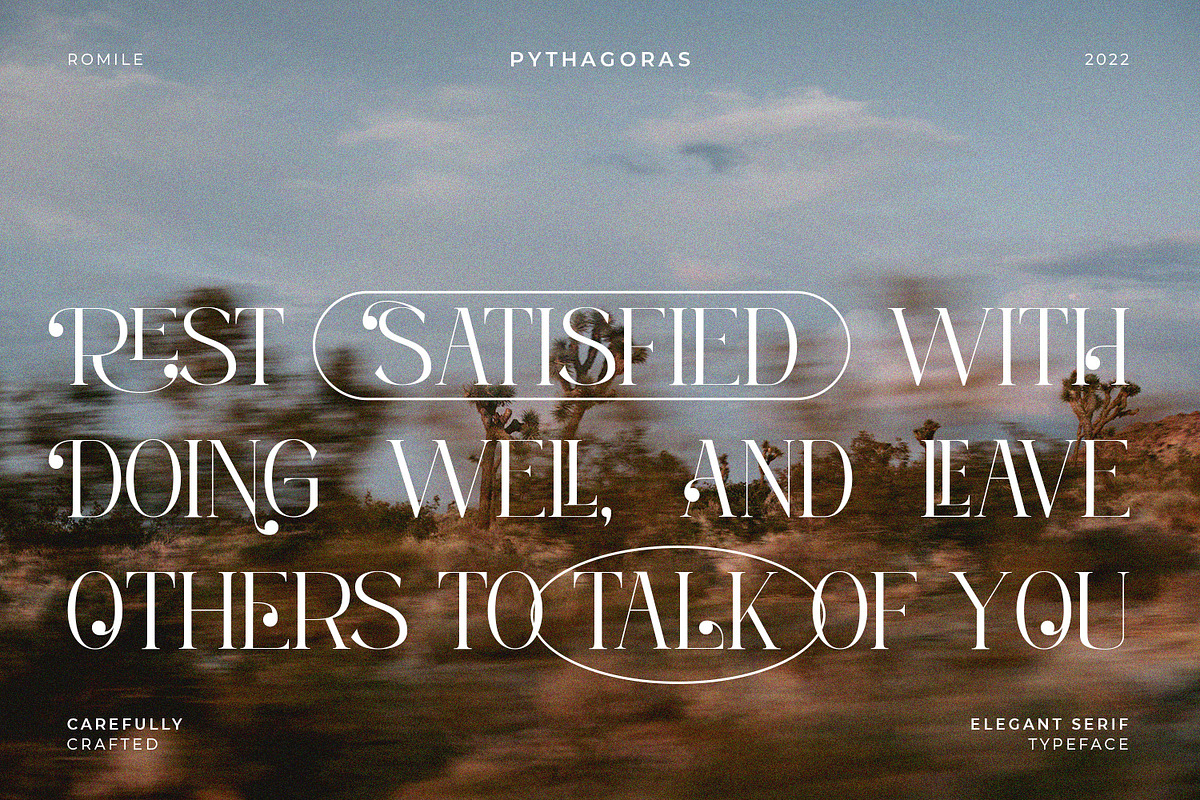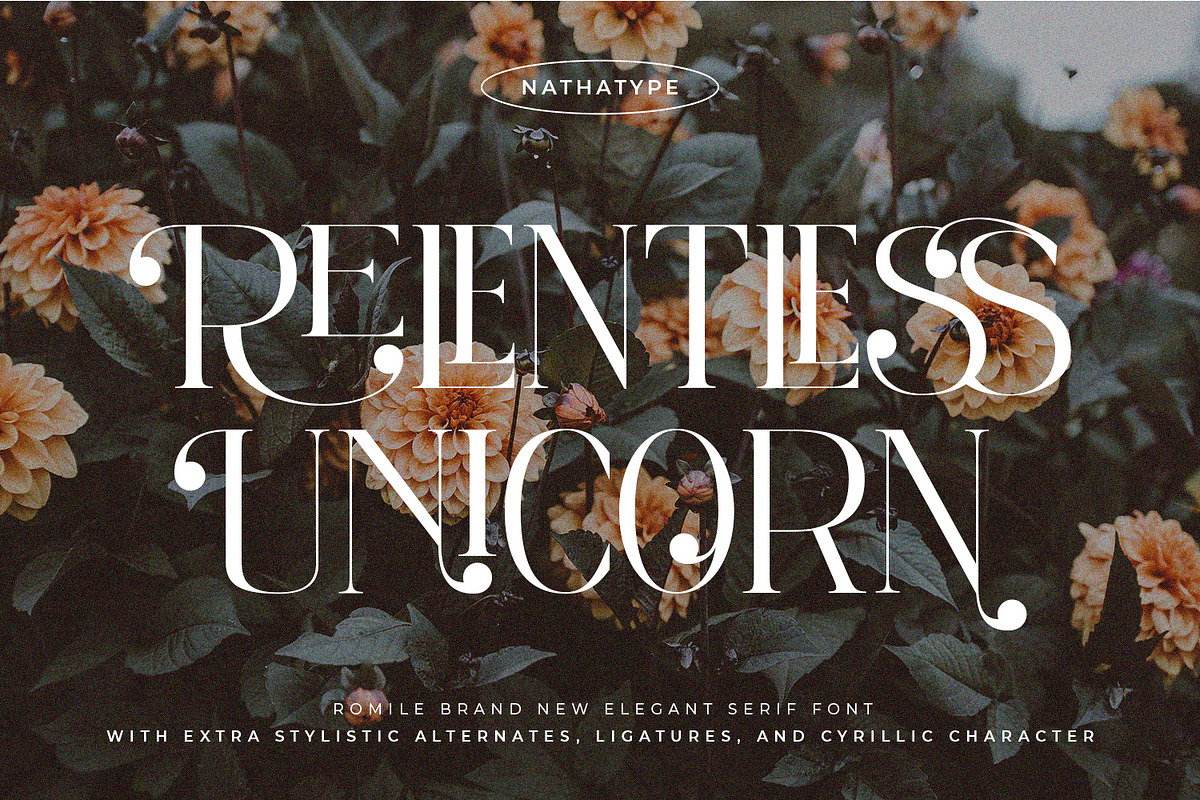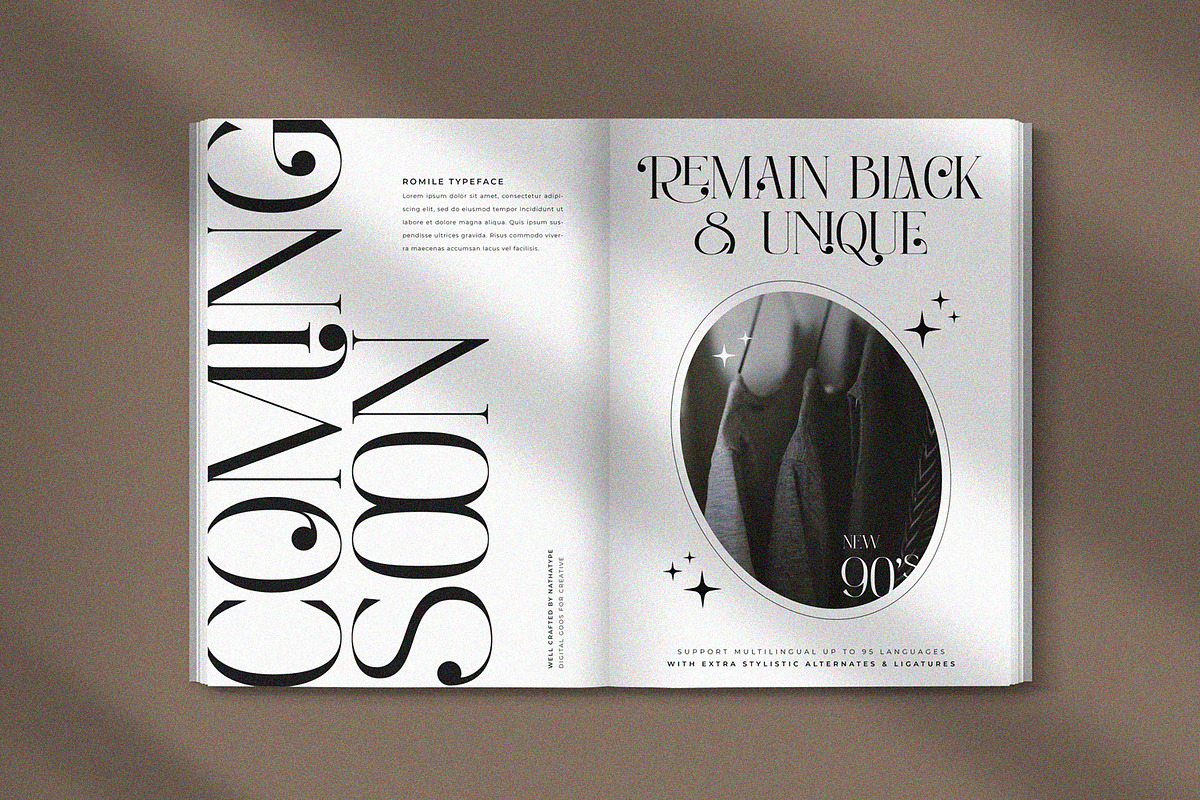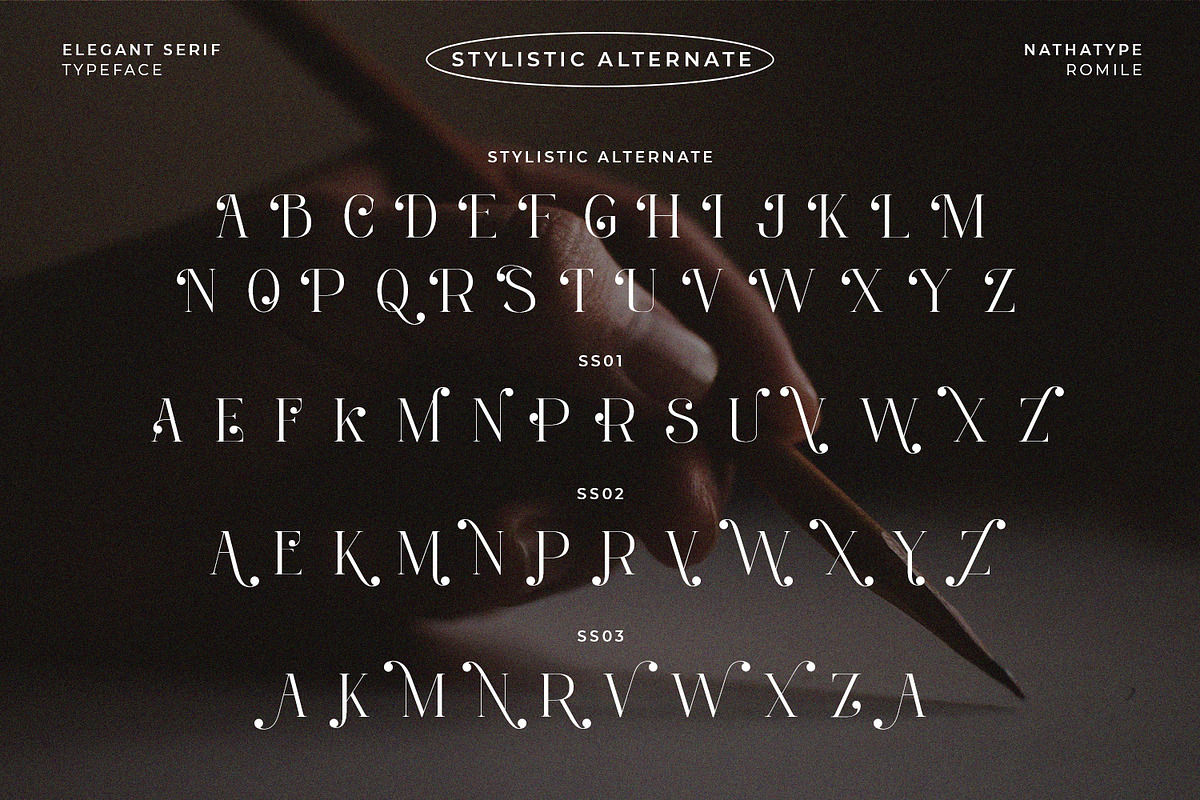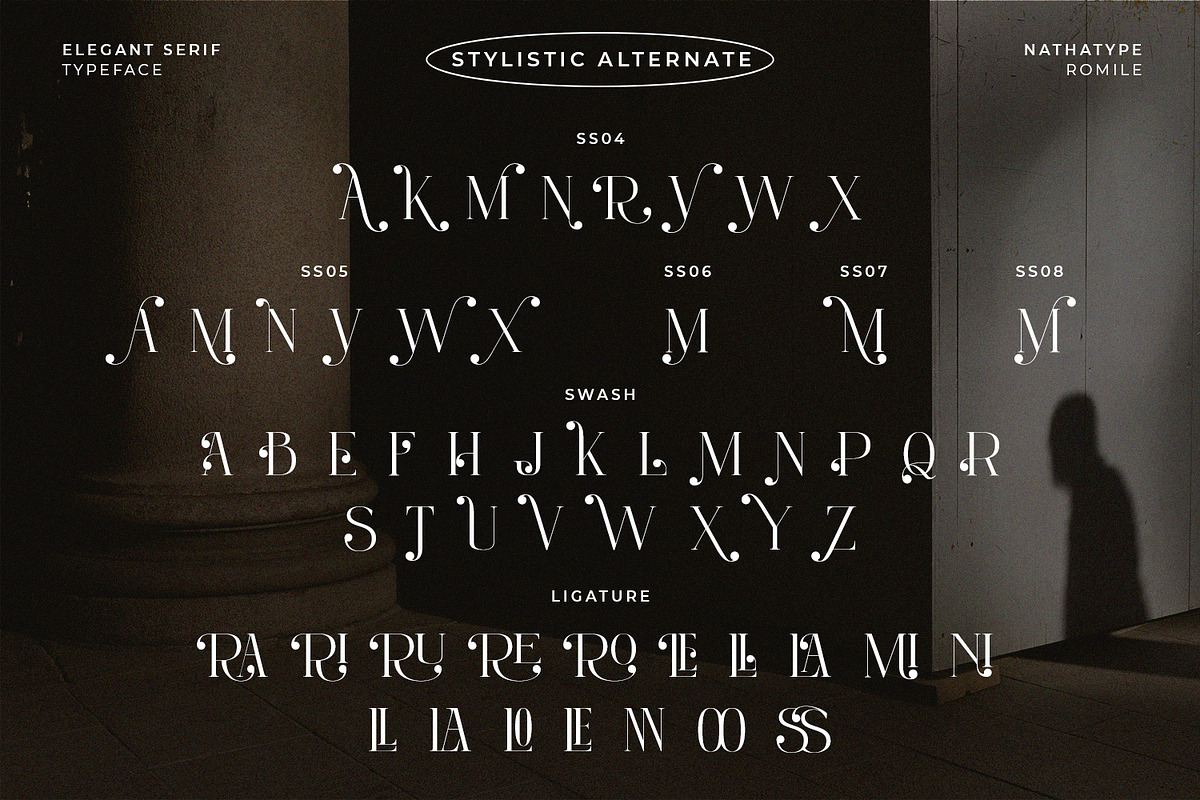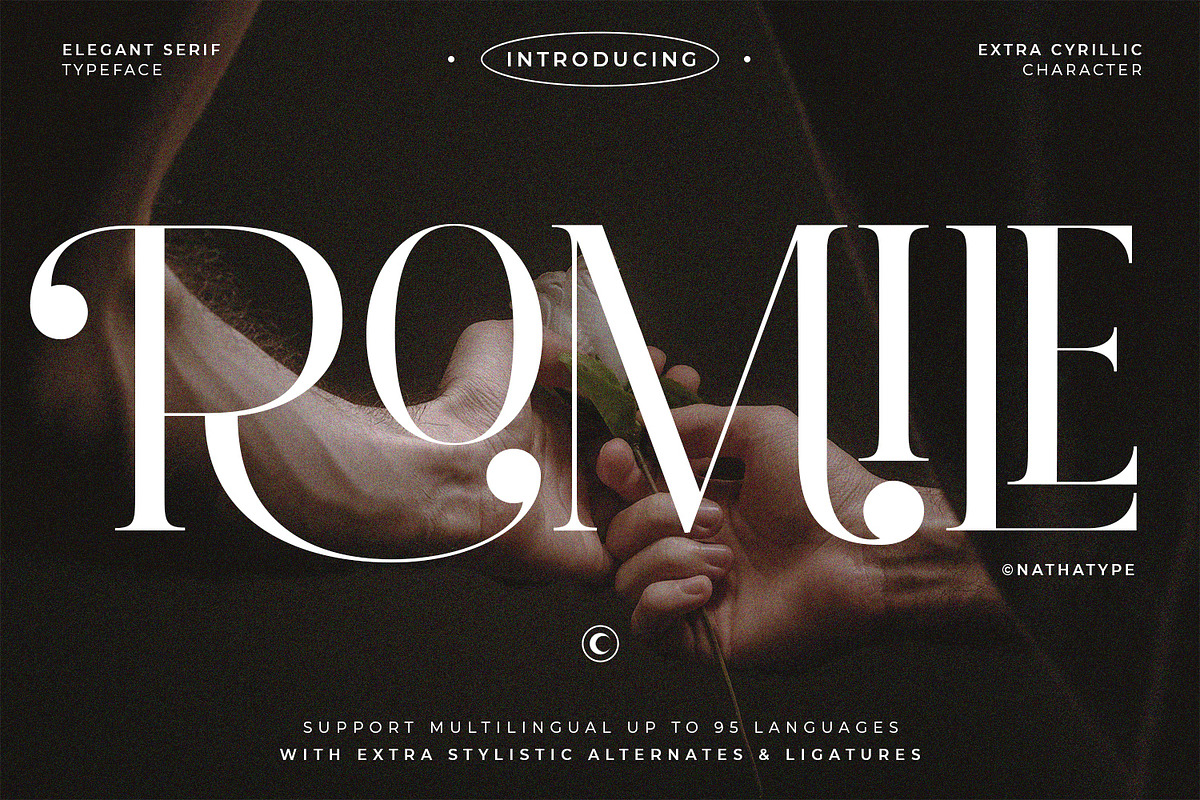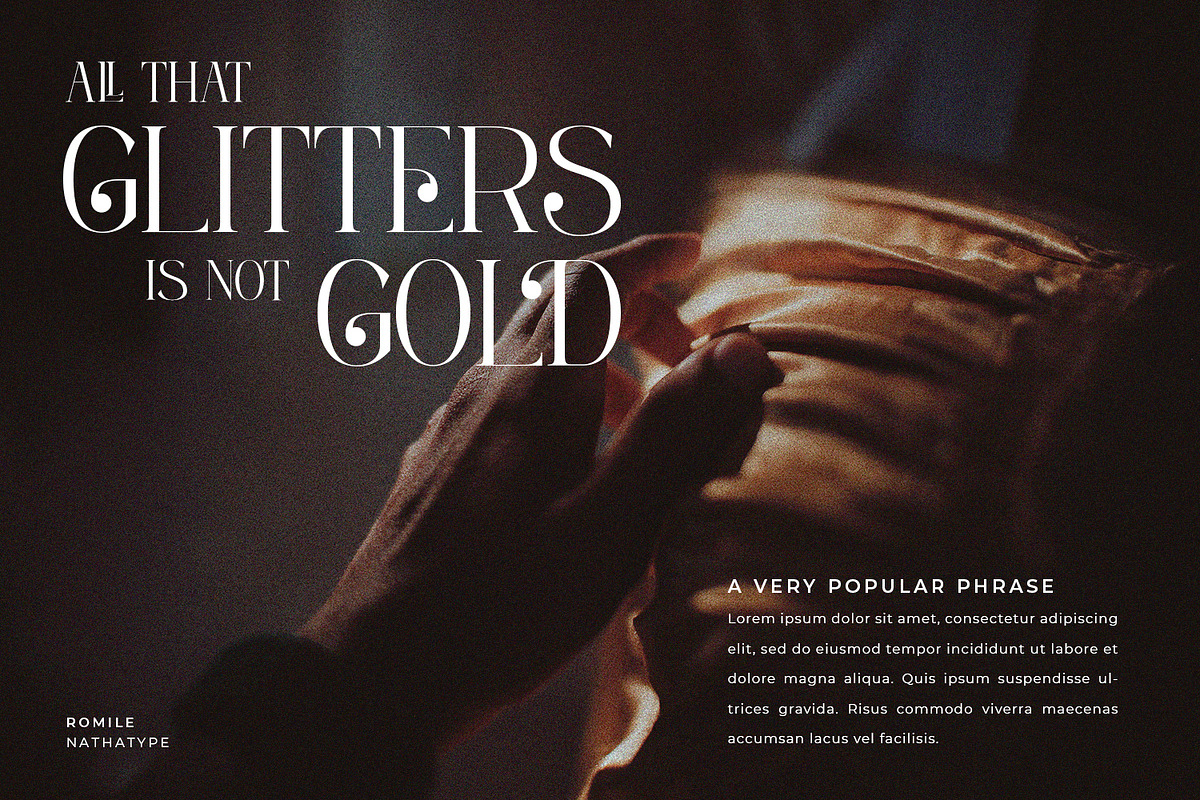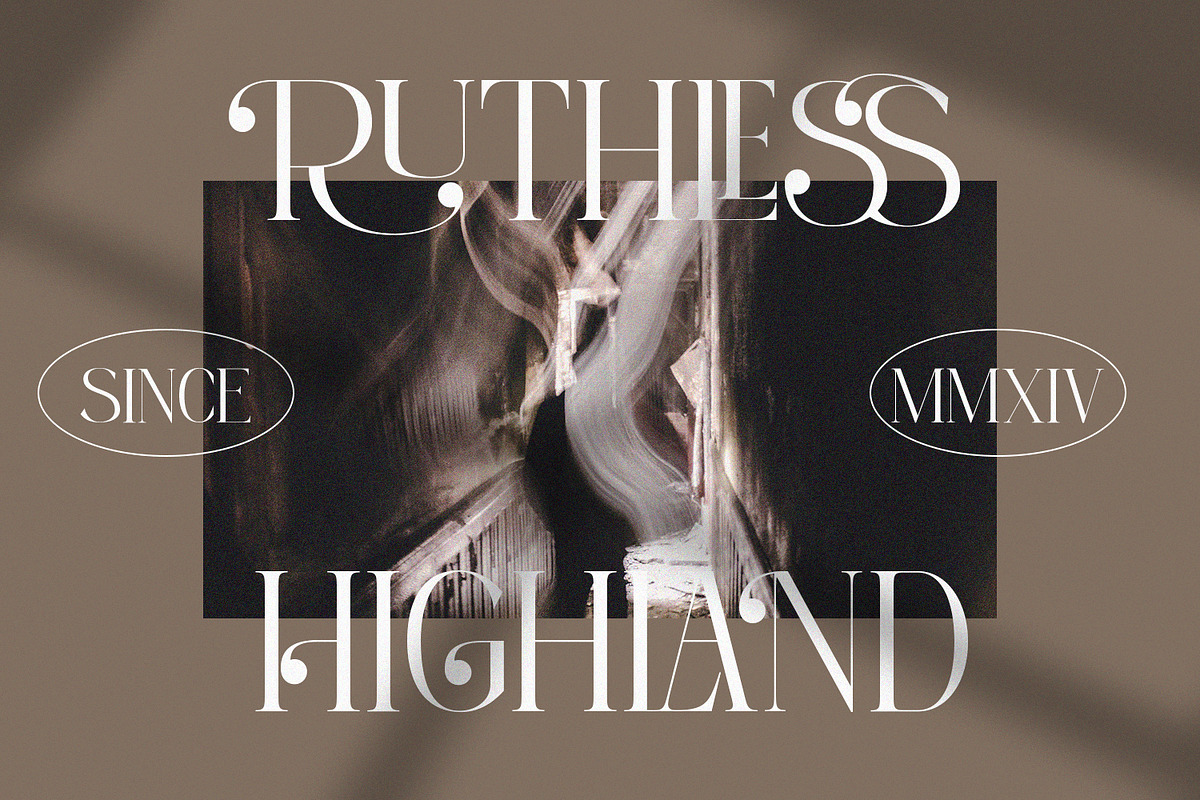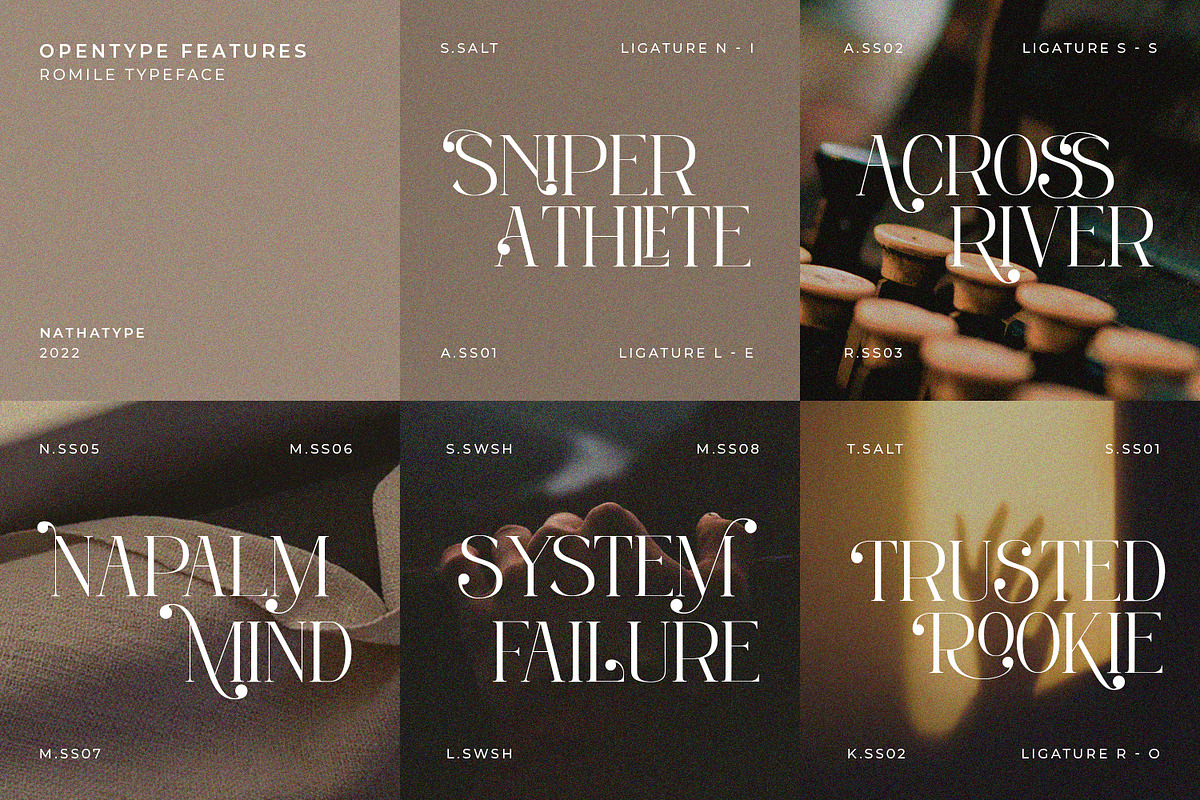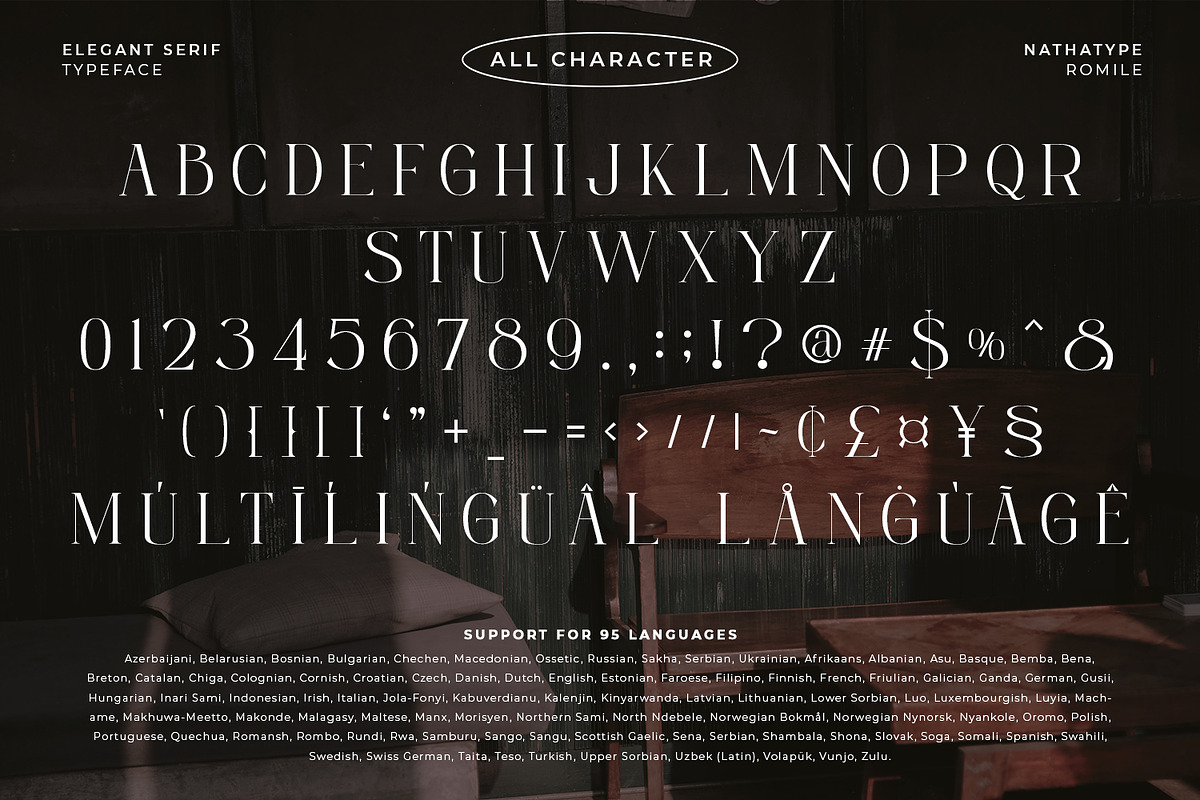
Romile
Romile is a elegant and bold serif font. It comes to be a single font all in uppercases. Thanks to the cursive and unique swirls at the end of some characters carries a sense of elegant looks. On the other hand, the weight of the font brings strength to any title or header you apply it to.
- Stylistic Sets